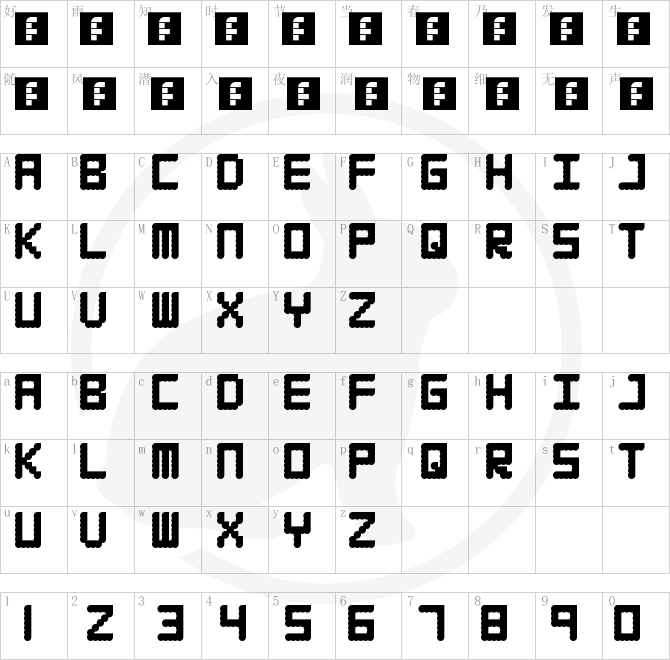
- Font Name:WAFFLEBOY
WAFFLEBOY-Regular.ttf is a very beautiful artistic font, WAFFLEBOY-Regular.ttf is widely used in the design and printing of various books and pictures,WAFFLEBOY-Regular.ttf has a strong visual impact,WAFFLEBOY-Regular.ttf is a commonly used font in newspapers, magazines and books, and is used in posters, e-commerce Poster design, store design, logo design, font design and other fields.WAFFLEBOY-Regular.